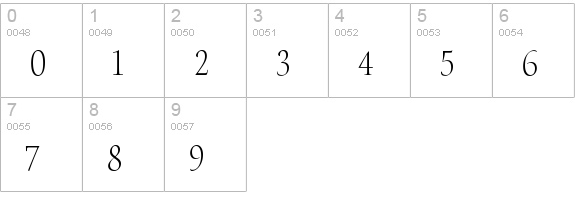
Waters Titling Pro Light Semicondensed Font Details
Waters Titling Pro Light Semicondensed is a refined, elegant variant in the Waters typeface family \xE2\x80\x94 well suited to elegant body text, refined sub-headings, and luxury branding.
Introducing Waters Titling Pro Light Semicondensed font, a sleek and modern typeface that radiates elegance and sophistication. This font is perfect for adding a touch of professionalism to any design project, whether it's for branding, advertising, or editorial purposes. The Waters Titling Pro Light Semicondensed font boasts a unique combination of clean lines and subtle curves, creating a harmonious balance that catches the eye and commands attention. Its light weight and semicondensed proportions give it a contemporary appeal, making it suitable for a wide range of applications. Designed with utmost precision and attention to detail, this font offers unmatched legibility and readability, ensuring that your message is conveyed effortlessly. Its versatility allows it to be used in various sizes, from small captions to large headlines, without compromising its visual impact. One of the most remarkable aspects of Waters Titling Pro Light Semicondensed font is that it is freely available to download at FontsMarket.com. Yes, you read that right - this high-quality font can be yours without spending a single penny. Its accessibility makes it an invaluable asset for designers, students, and creatives who are looking to enhance their projects with a professional touch. With Waters Titling Pro Light Semicondensed font, you can elevate your designs to new heights, leaving a lasting impression on your audience. Its sleek and contemporary aesthetic combined with its accessibility makes it a must-have for anyone seeking to create visually stunning and impactful designs. So why wait? Take advantage of this incredible opportunity and download Waters Titling Pro Light Semicondensed font for free at FontsMarket.com. Unleash your creativity and watch as your designs come to life with this exceptional typeface.